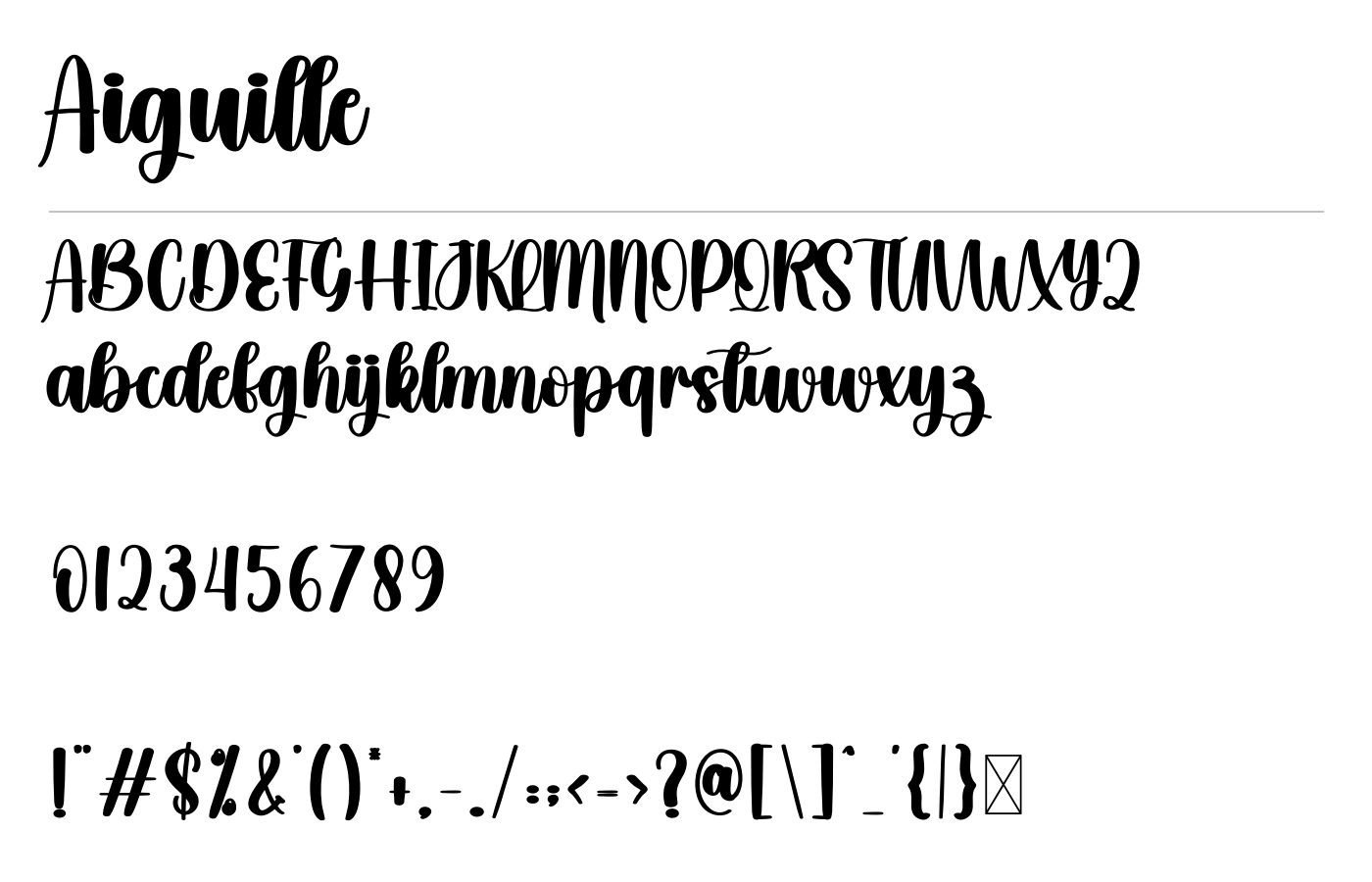
Aiguille is a lively and elegant script font that features smooth, flowing strokes with a bold weight and moderate contrast, making it highly legible while retaining a hand-crafted charm. Its playful curves and distinctive letterforms give it a friendly yet stylish personality, perfect for creative branding, invitations, and eye-catching headlines where a personal and sophisticated touch is desired. This font suits projects that need a blend of warmth and modern flair, adding personality without sacrificing clarity.
Aiguille Font
About Aiguille Font